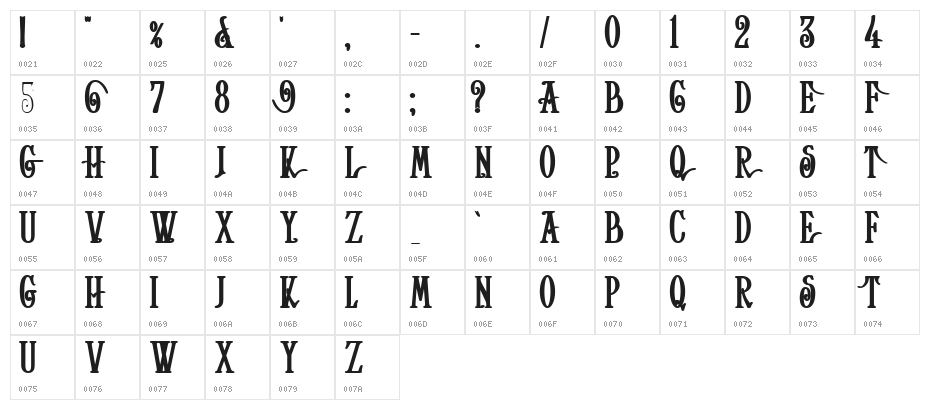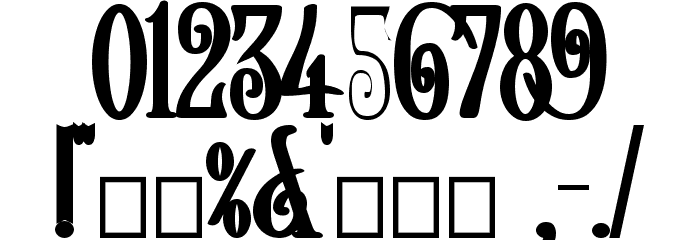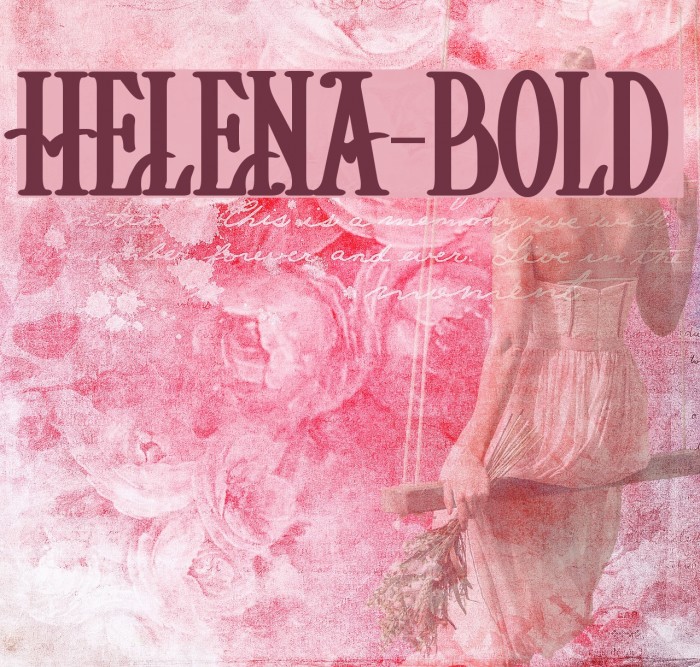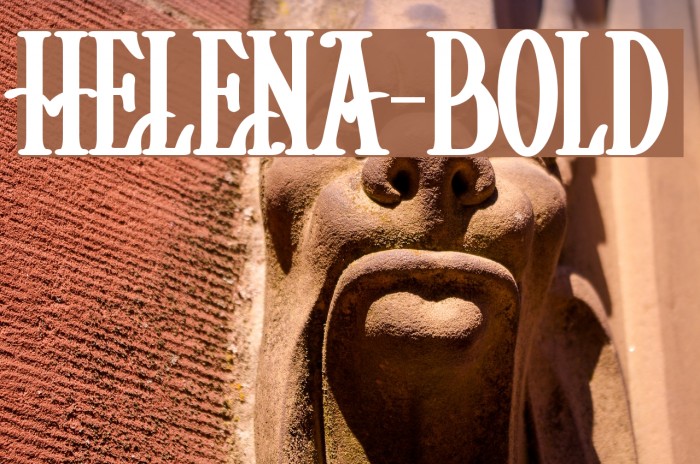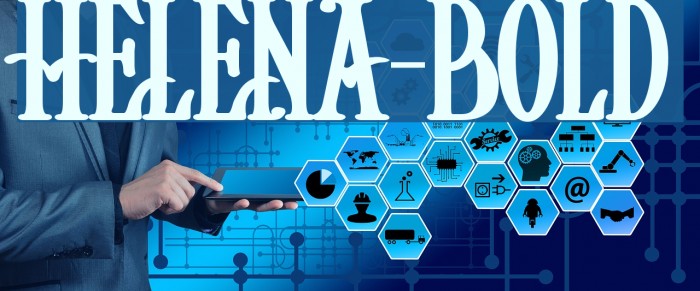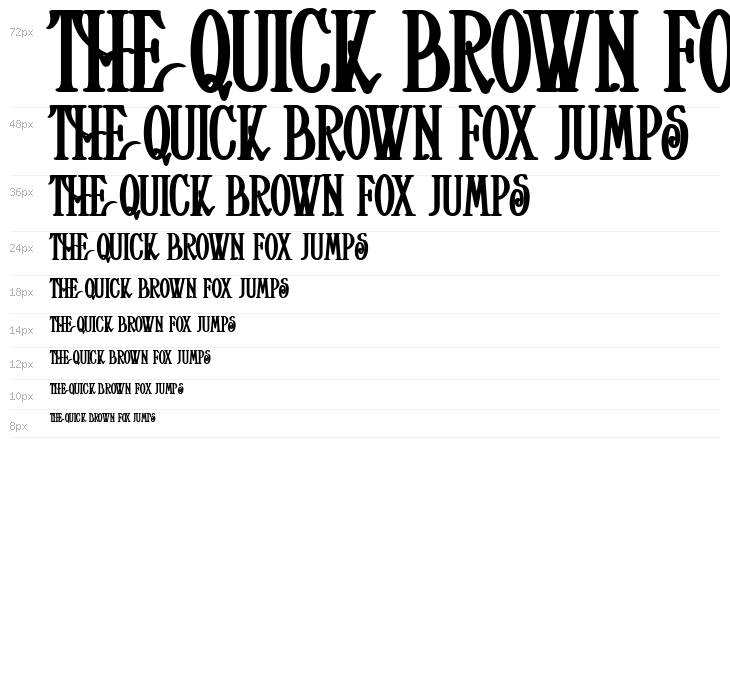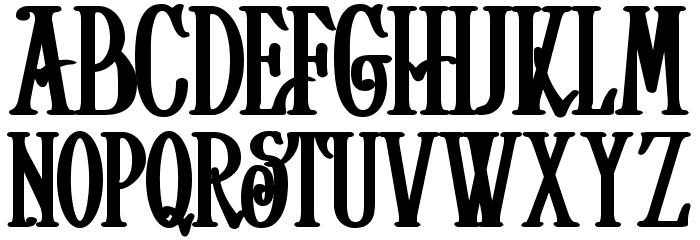
Helena-Bold Font
Helena-Bold Description
This font features a bold and decorative style with a unique flair. The uppercase letters are characterized by exaggerated serifs and swirling embellishments, giving it a whimsical and artistic appearance. The lowercase letters maintain this decorative theme, with consistent stroke thickness and playful curves. The numbers and special characters follow suit, incorporating similar stylistic elements that make the font stand out. Its bold presence and intricate design make it suitable for eye-catching displays.
| Proposed Projects | Ideal for creative projects such as posters, invitations, branding, and any design requiring a standout decorative element. |